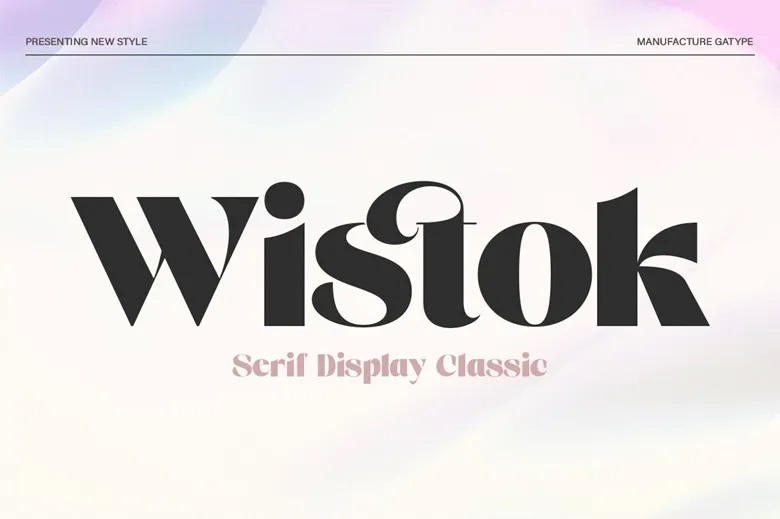
Wistok Font
Wistok is a clean and elegant traditional typeface especially crafted for use in display purposes for texts, logos and other designs.. Having clean, smooth lines and fine distinctive embellishments, its letterforms portray a classic feel. Specifically suitable for environment which requires a universal yet polished look, Wistok gives your project a touch of elegance.
Wistok Serif Font